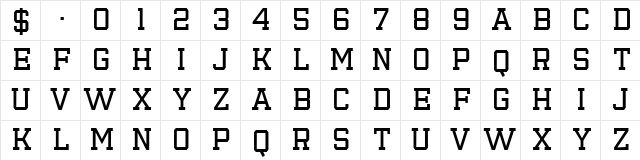
Emilio 19 Regular
Design Context for Emilio 19 Typeface
Emilio 19 is a composed and adaptable typeface that performs quietly and consistently across a wide range of design contexts.